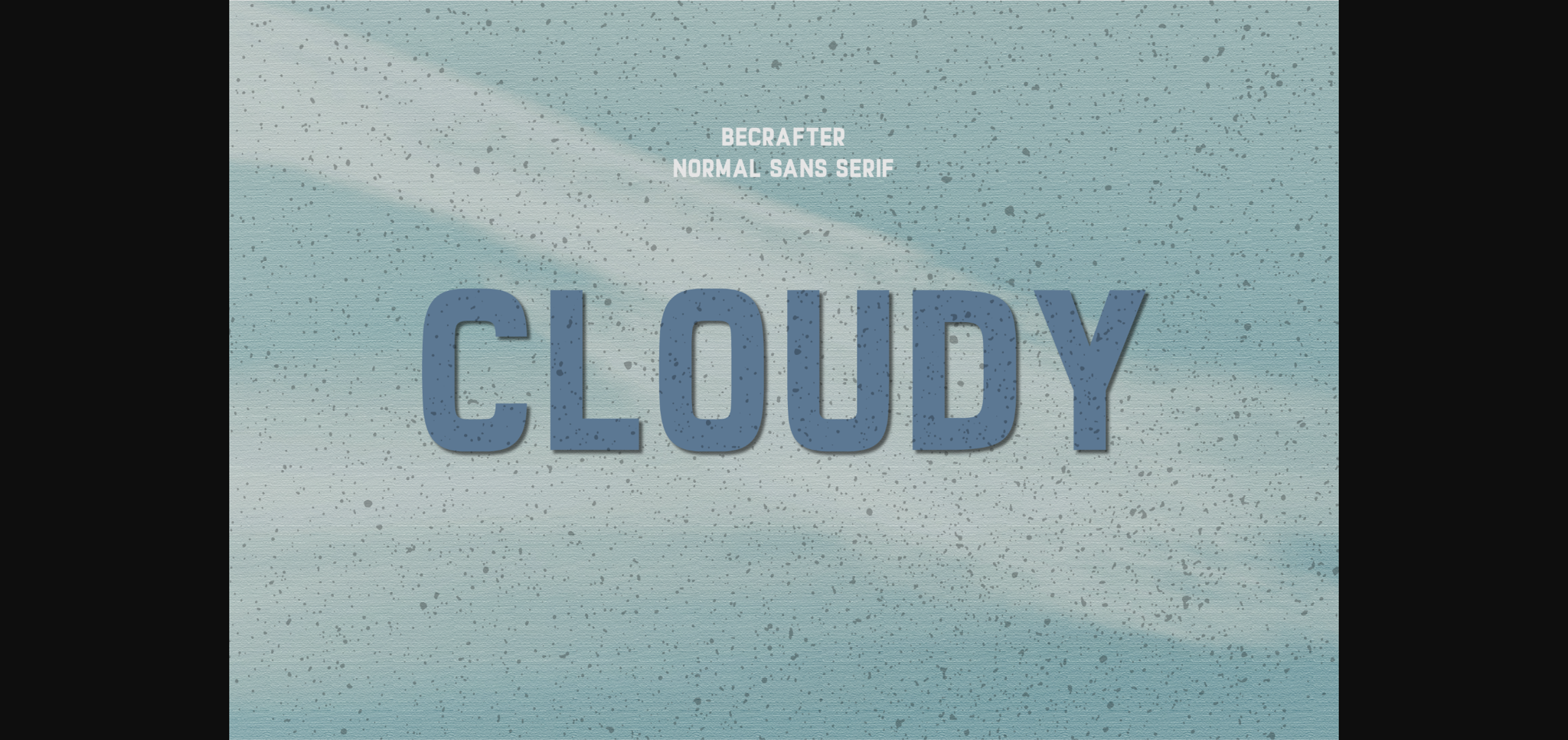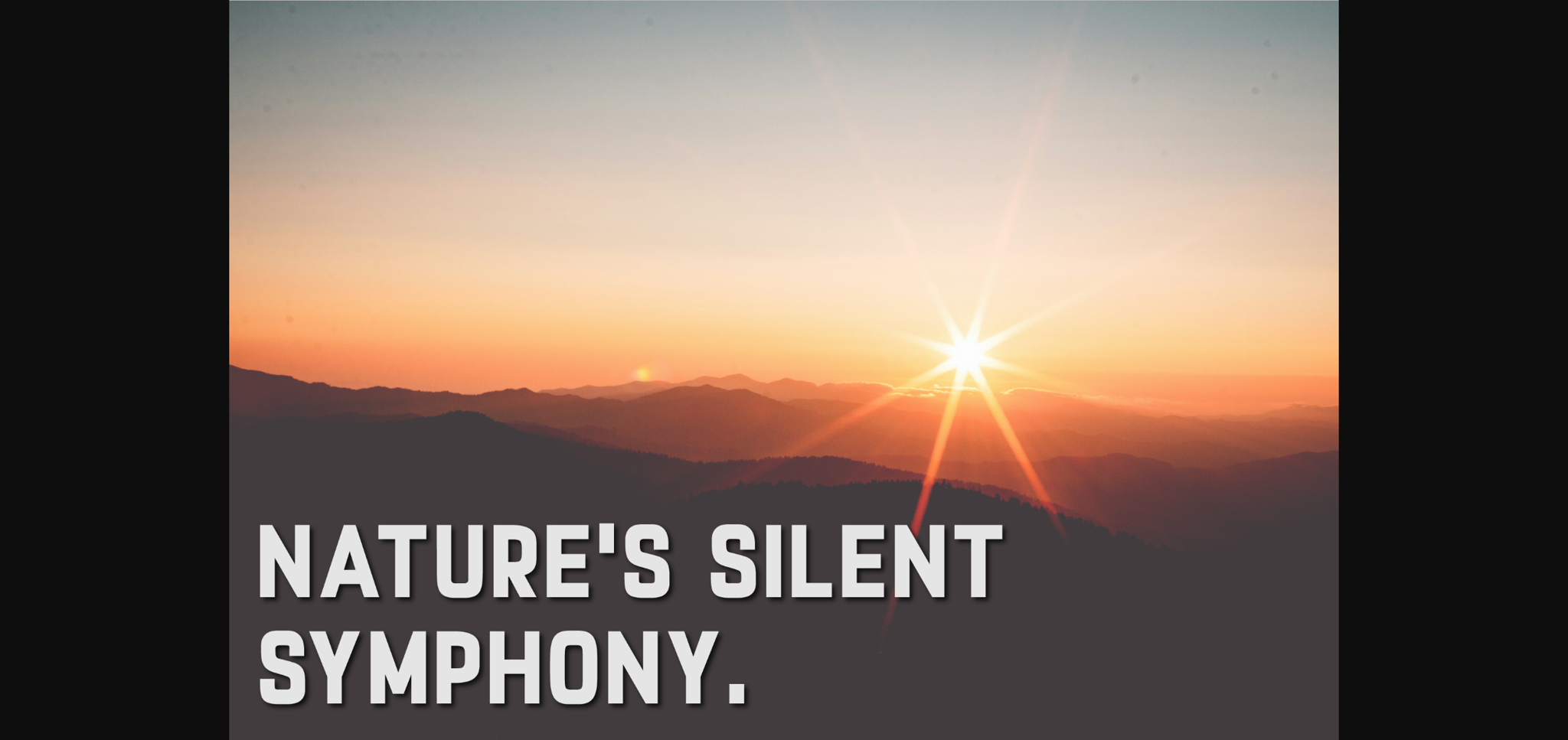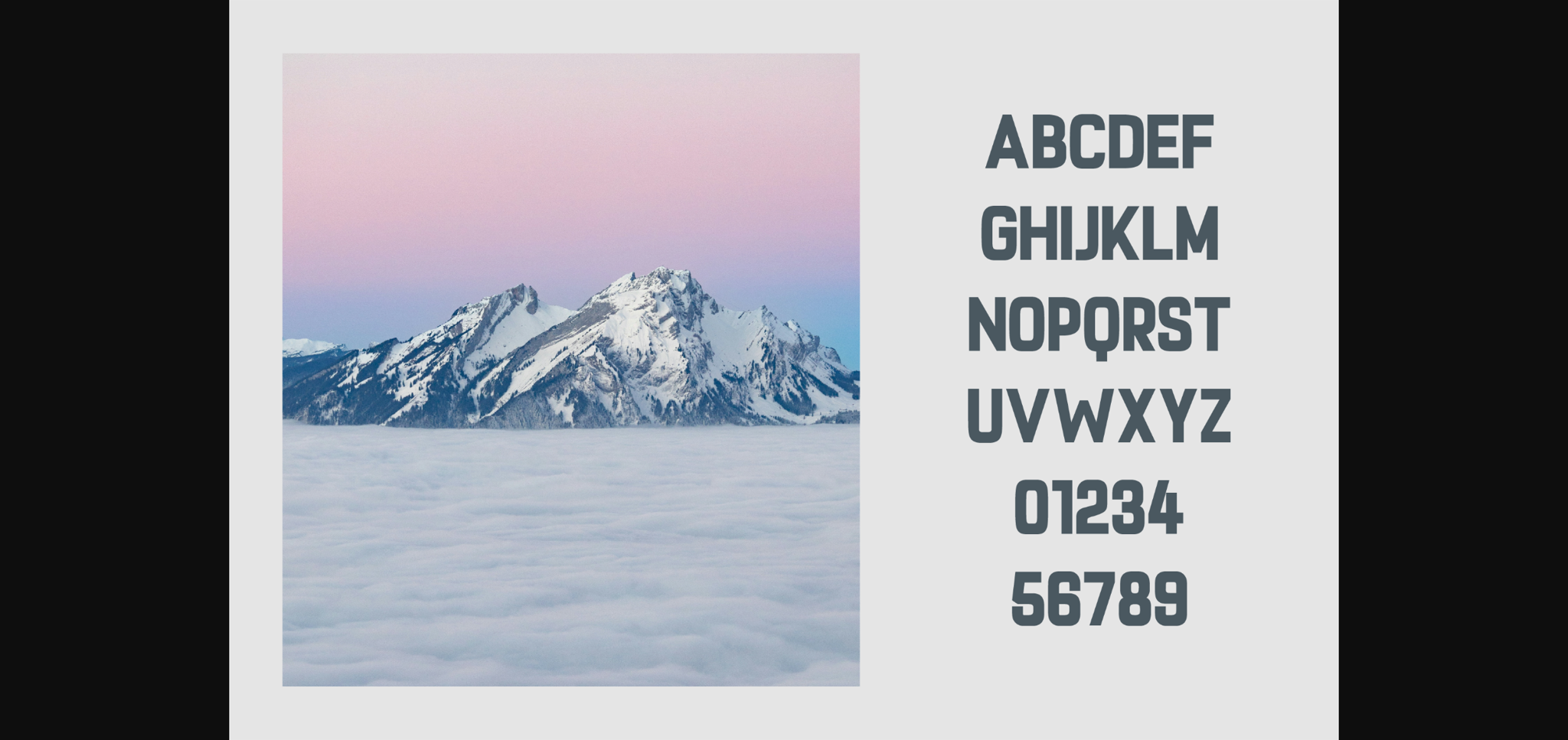
About Cloudy Font
Introducing Cloudy, a striking and robust typeface that masterfully merges vintage charm with contemporary sensibilities. Rendered in bold, uppercase styling, this sans serif is the epitome of versatility, seamlessly adapting to any creatively inspired setting. It effortlessly breathes life into an array of creations from captivating logos to elegant printed pieces and beyond. Cloudy promises beauty, flexibility, and a unique aesthetic that will make any design stand out!